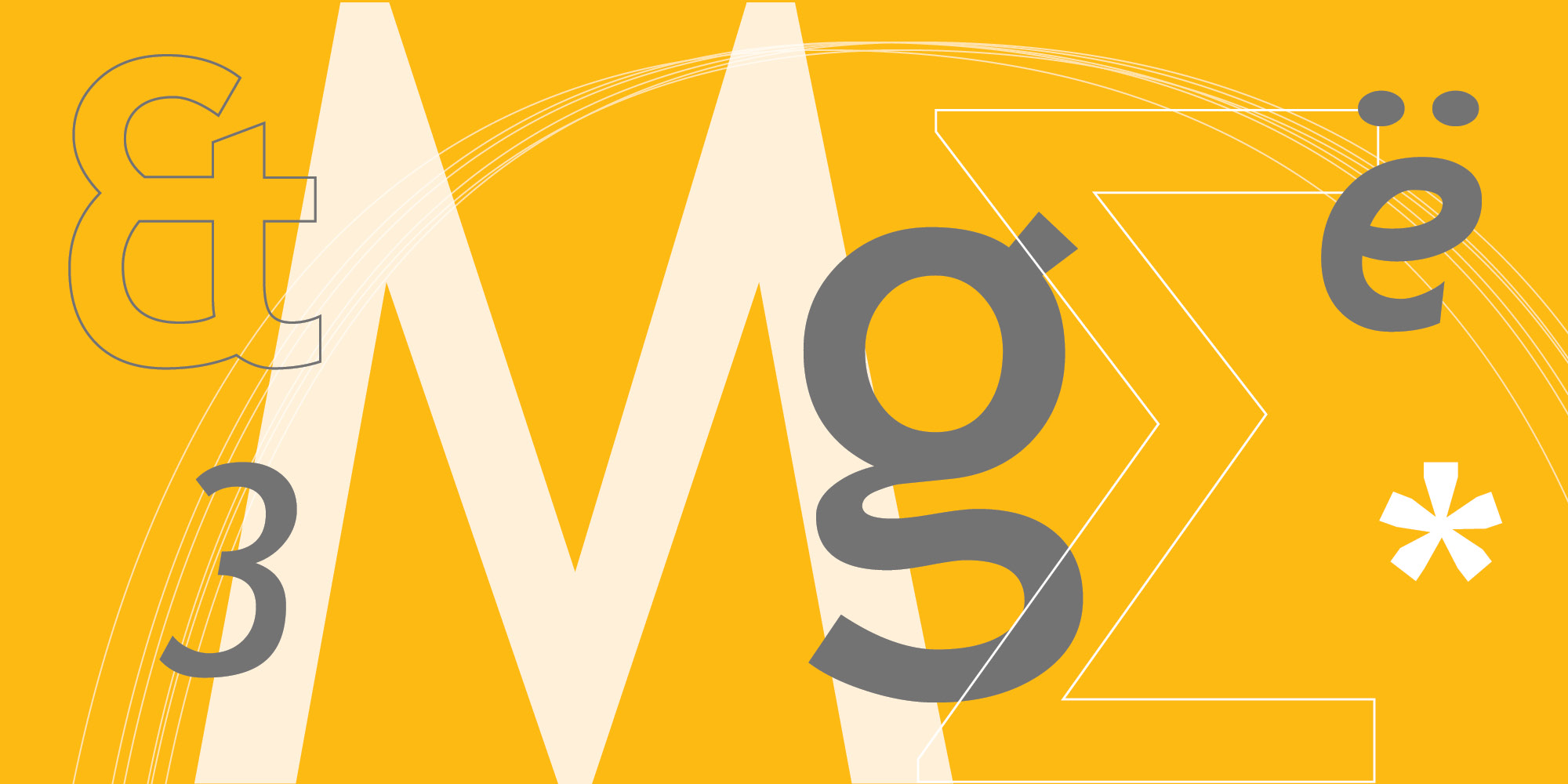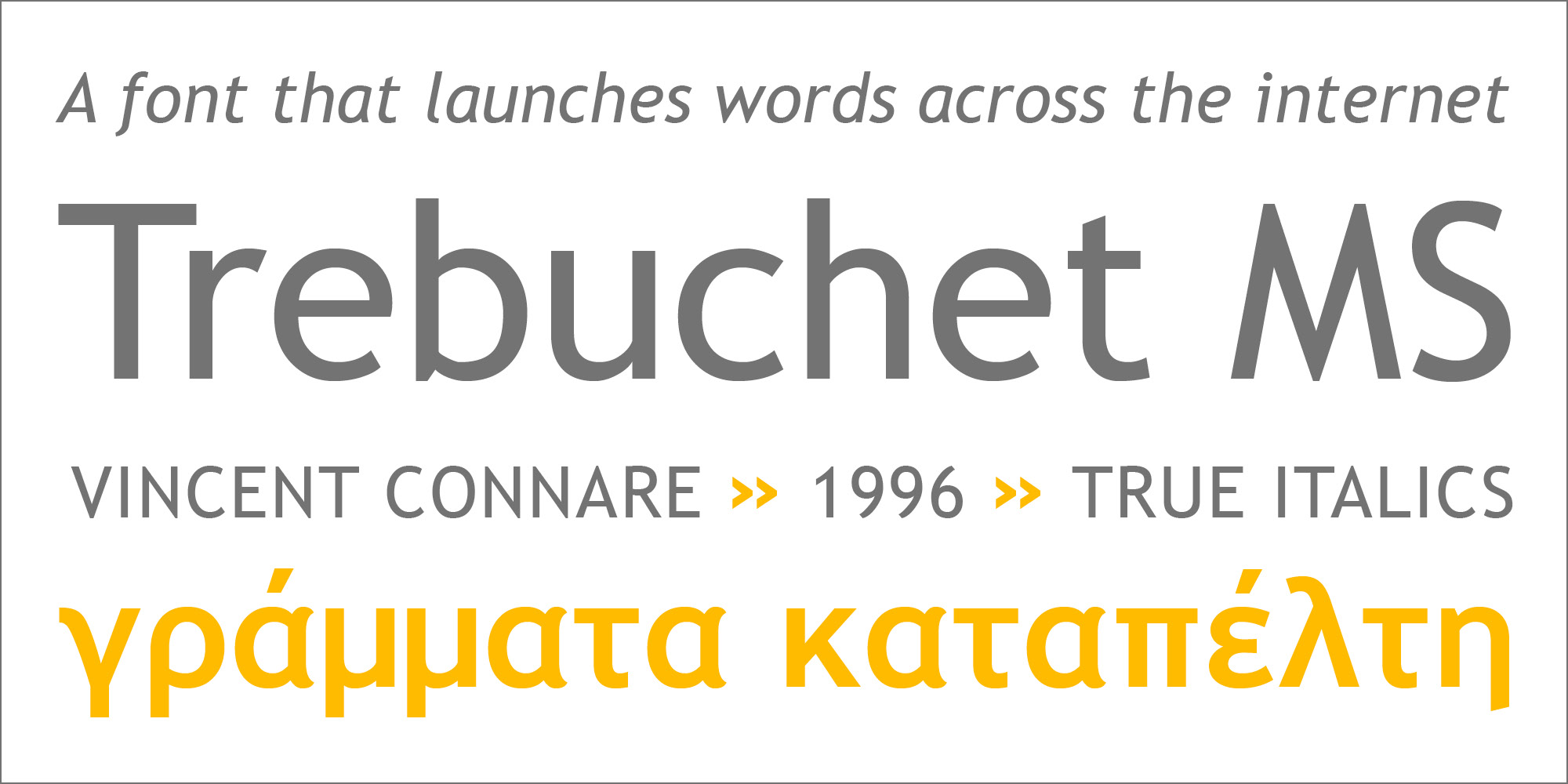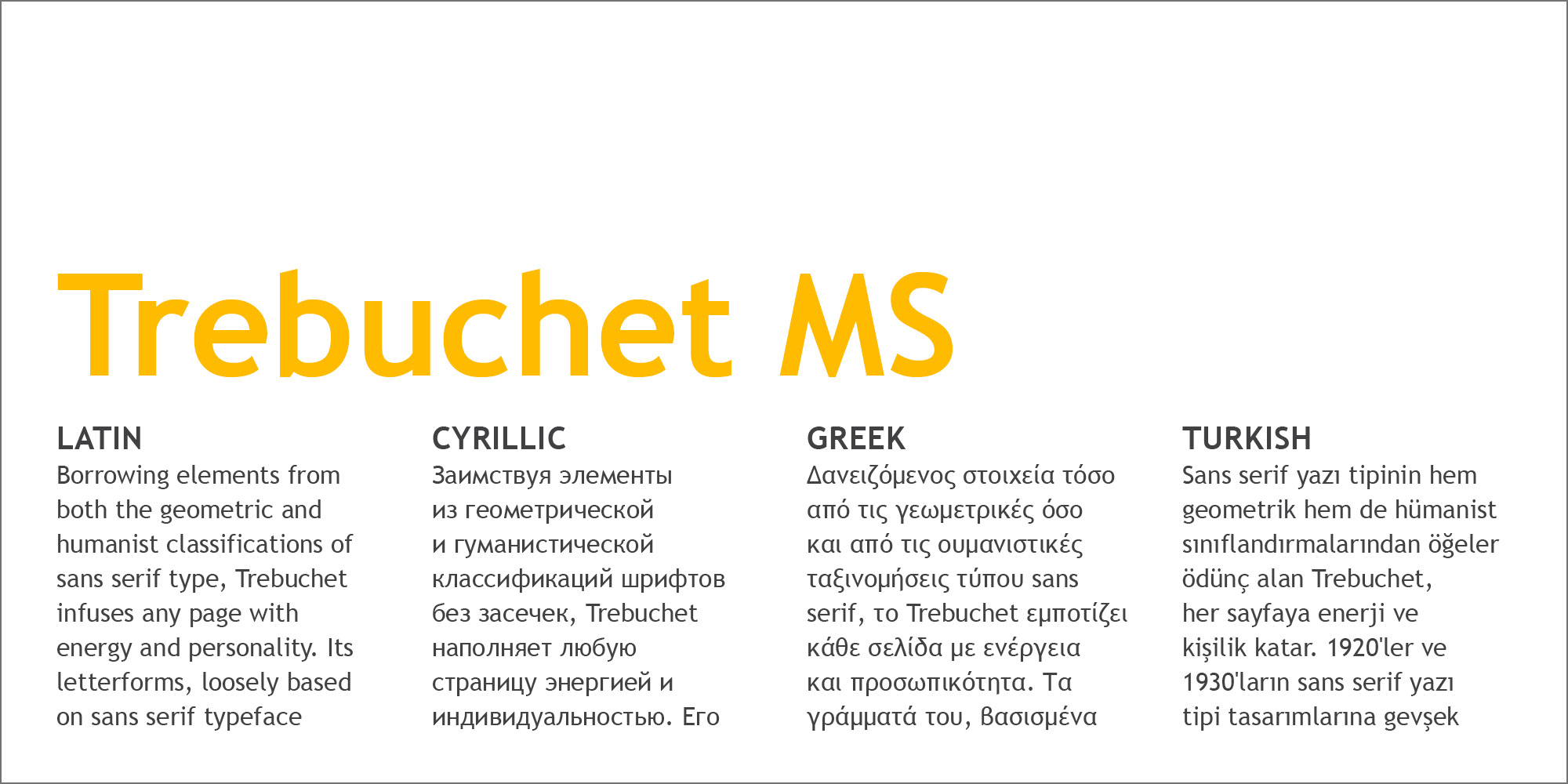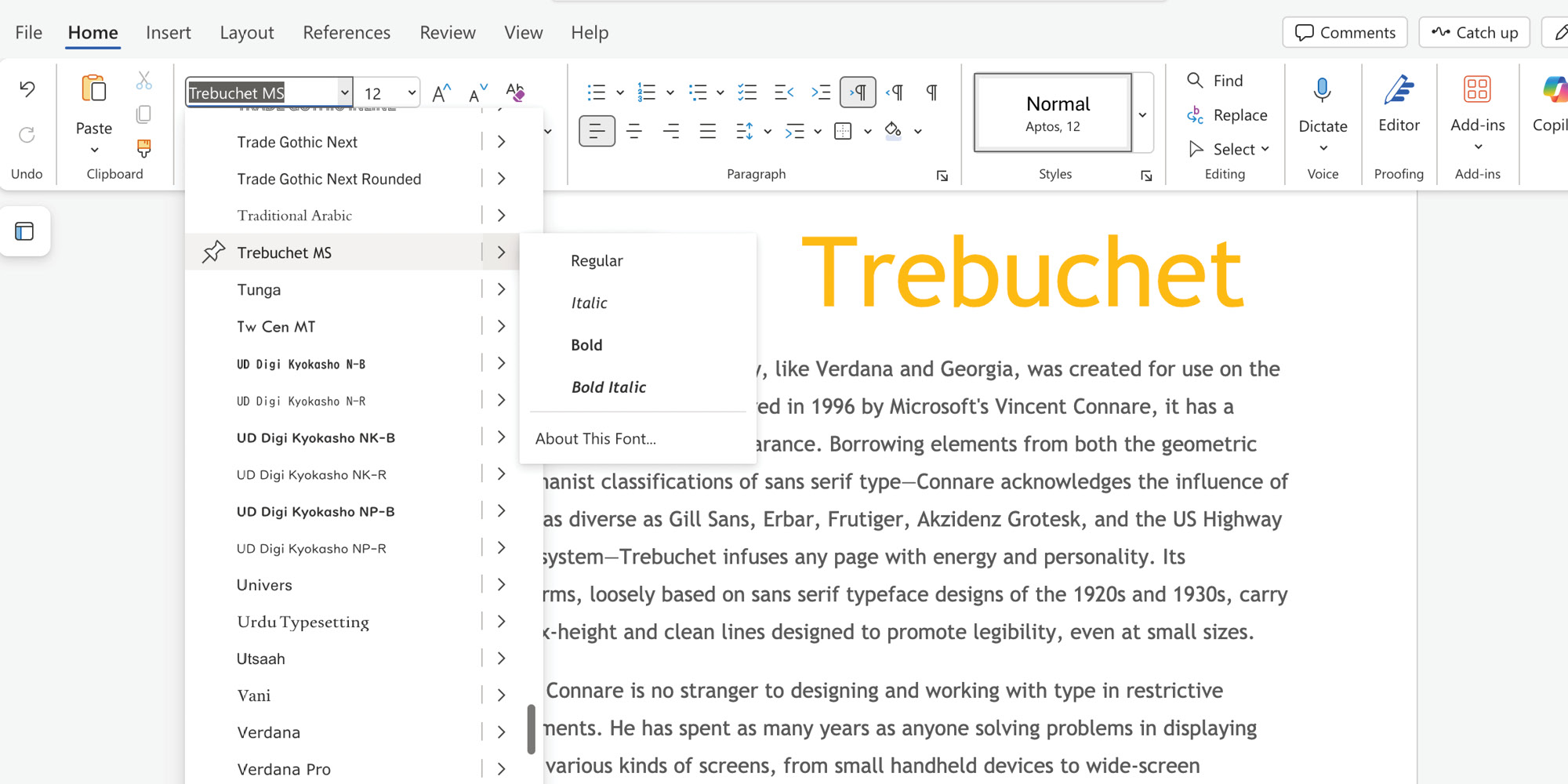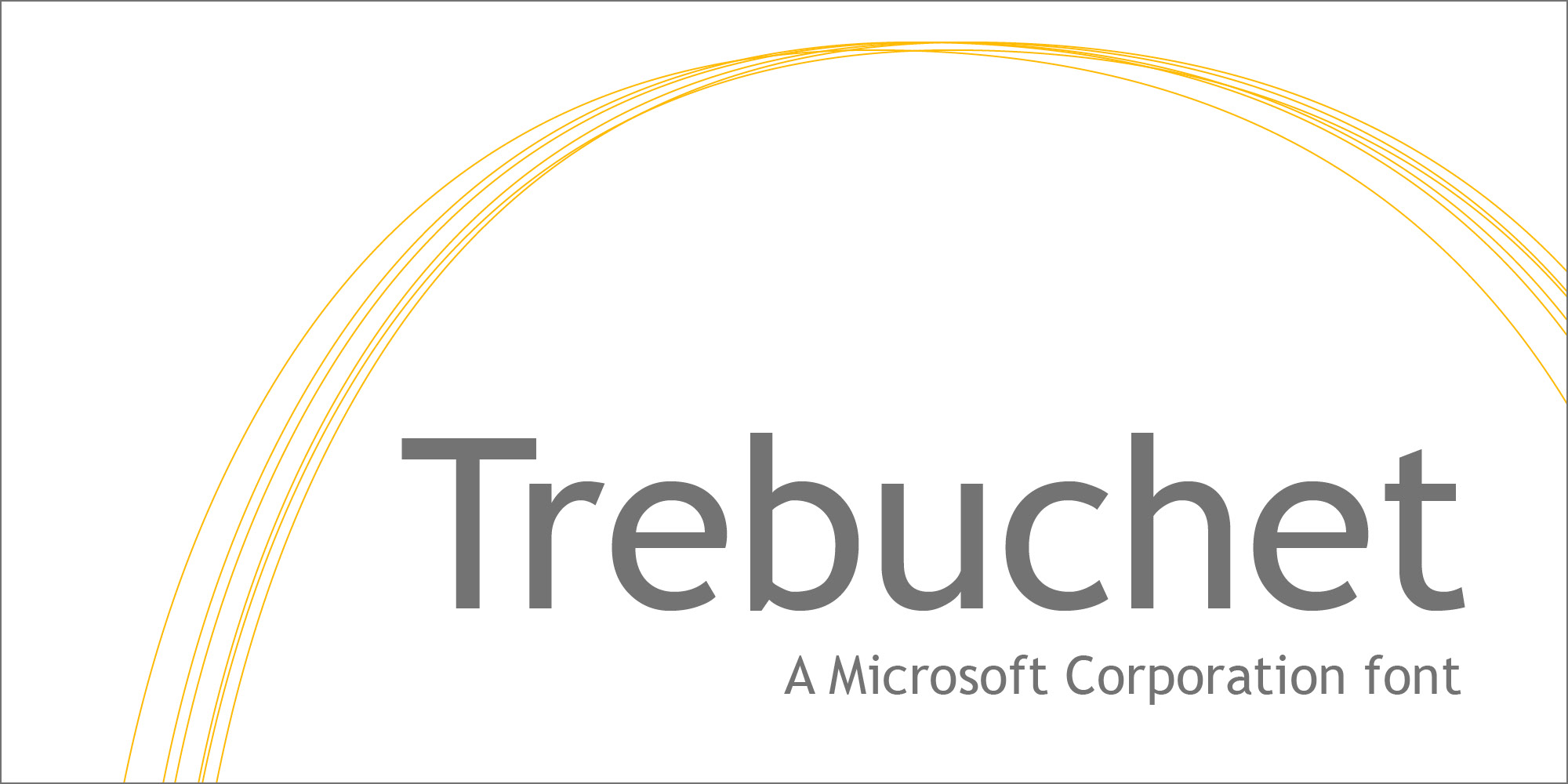
The Trebuchet typeface family, like Verdana and Georgia, was created for use on the screen. Designed and engineered in 1996 by Microsoft's Vincent Connare, it has a strong and unmistakable appearance. Borrowing elements from both the geometric and humanist classifications of sans serif type - Connare acknowledges the influence of designs as diverse as Gill Sans, Erbar, Frutiger, Akzidenz Grotesk, and the US Highway signing system - Trebuchet infuses any page with energy and personality. Its letterforms, loosely based on sans serif typeface designs of the 1920s and 1930s, carry a large x-height and clean lines designed to promote legibility, even at small sizes.
Vincent Connare is no stranger to designing and working with type in restrictive environments. He has spent as many years as anyone solving problems in displaying type on various kinds of screens, from small handheld devices to wide-screen television sets. Although much of his working life has been spent making existing typeface designs work in new environments and technologies, he is already well known for his Comic Sans, which among other faces of his has received an immediate and warm response from users all over the world. With Trebuchet, Connare has managed to create a face that has become an instant classic, winning more admirers day after day.
Perhaps Connare's greatest achievement with the Trebuchet family is to have created a font that works at heading and display sizes as well as small sizes and low resolutions; no mean task given the low resolution of the computer screen, which tends to dilute the characteristics of letterforms, rendering them dull and boring. After all, a lowercase e, which at 8pt on the screen can be at most four or five pixels high, can only be drawn in a limited number of ways.
One of Connare's intentions when designing Trebuchet was to instill personality into the letterforms, even at small sizes, while retaining clarity and readability. He wanted to create a typeface that was 'significantly distinguishable from Verdana and MS Sans'. He has accomplished this by departing from the classical model in characters such as the lowercase g and uppercase M, unique yet reminiscent of some of Paul Renner's alternate designs for Futura. Less noticeable details include the serif-like bars of the lowercase i and j, and the curled, kicking stem of the lowercase l - efforts intended to make each character as distinct and recognizable as possible.
Trebuchet is well-suited to use for extended texts, User Interface scenarios, and spreadsheet design, given the font's narrow letterforms. Trebuchet works brilliantly on the screen and has quickly become a classic choice for Web page design.
Trebuchet MS